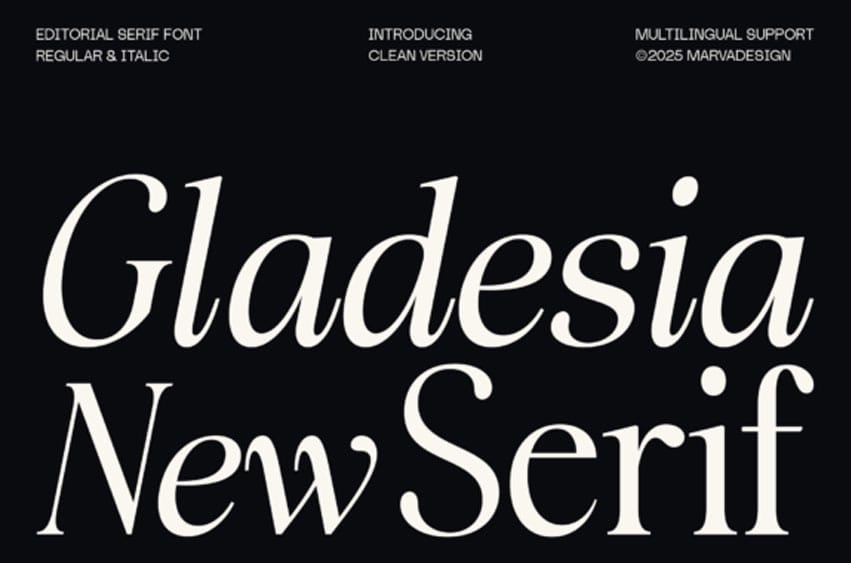
Gladesia Font is an elegant editorial serif style with two main variants, namely Regular and Italic. The design presents a high contrast between thick and thin parts, giving a luxurious and classy look. The proportional letterforms with sharp and smooth ends create a balance between classic and modern nuances. The italic version features more graceful curves, making it ideal for designs that require a feminine and dynamic touch.
In addition, this font supports various languages, making it flexible for use in international projects. In terms of application, this font is very suitable for use in editorial designs, branding, and promotional materials that emphasize aesthetics and exclusivity. Its solid capital letters give a prestigious impression, while the variation of shapes and the possibility of unique ligatures allow for text arrangement.
This font can be applied to magazines, logos, posters, and digital displays to create a professional and classy impression. With a luxurious and flexible design, this font is the perfect choice for designers who want to present elegant, modern, and timeless typography.